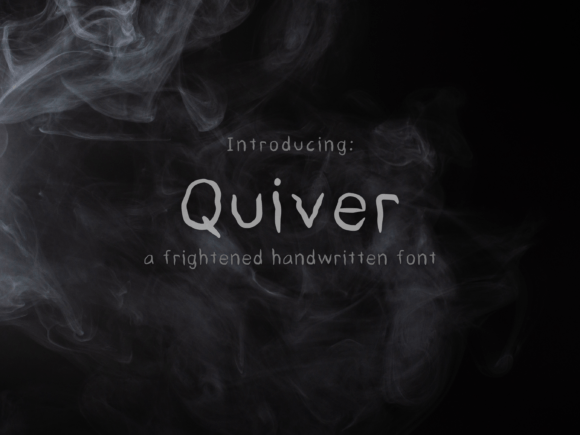
In the haunted chambers of typographical artistry, where shadows dance and whispers echo, resides the Quiver font – a chilling creation, meticulously crafted to cast a spell of fear and intrigue upon your designs. Step into the realm of the macabre, where every letter shivers with trepidation, ready to unleash an eerie symphony that will send shivers down your spine.
Crafted by the ingenious mind of Abi Grey, the Quiver font is a masterpiece of suspense, a dance of characters that weaves a tale of mystery and dread. Its strokes, like whispers from beyond, seem to quiver in perpetual fear, evoking a sense of impending doom that will leave your audience breathless.
Behold the enigmatic charm of Quiver, a font that defies convention and embraces the extraordinary. Its haunted elegance will add a spine-tingling touch to your Halloween invitations, sending chills down the spines of your guests. It will breathe sinister life into your ghostly posters, transforming them into harbingers of the supernatural. And as you adorn your haunted house with Quiver-crafted décor, be prepared for an atmosphere of eerie enchantment that will leave your visitors spellbound.
With Quiver, you possess the power to conjure up an aura of fright and trepidation, leaving an indelible mark on the hearts and minds of all who encounter it. Dare to embrace the darkness, to explore the depths of fear and suspense, and let the Quiver font guide you on this haunting journey. For it is in the shadows that true artistry resides, waiting to be unleashed upon the world.